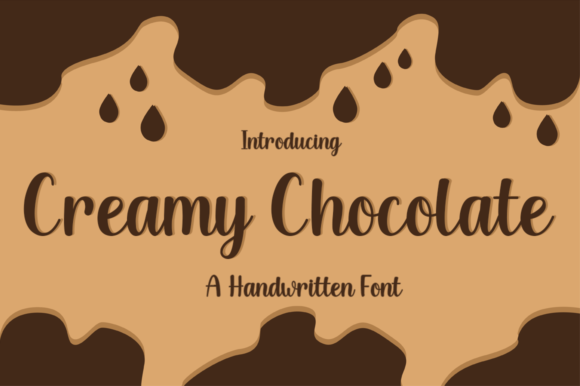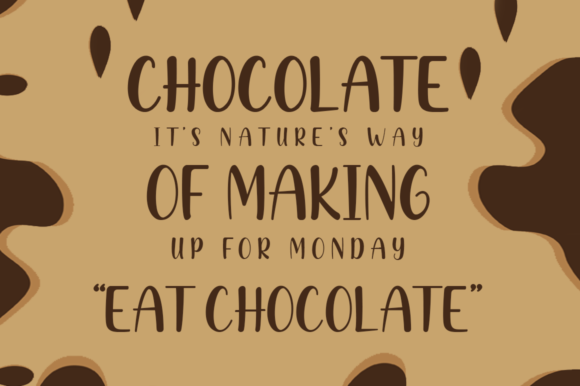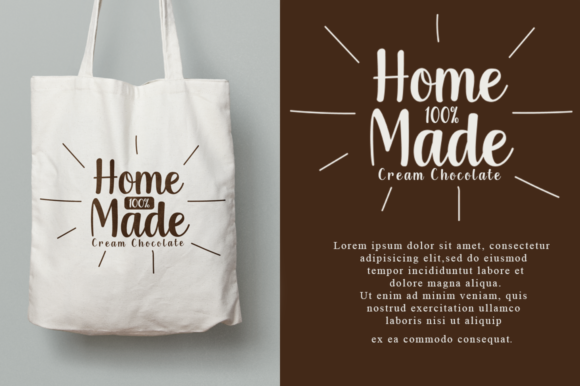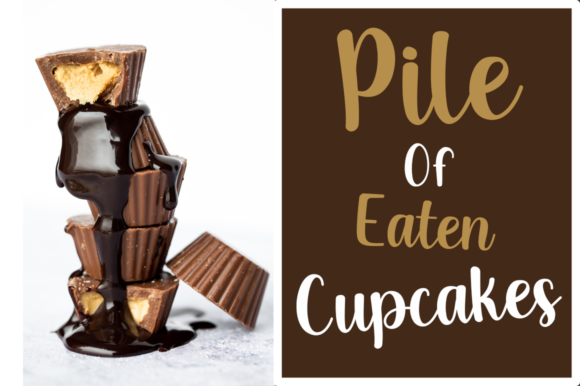
Creamy Chocolate Font: Cute Handwritten Script for DIY & Cricut Projects
About the Creamy Chocolate Font
Step up your design game with Creamy Chocolate Font, a font that exudes confidence and style. Creamy Chocolate is a cute and elegant handwritten font with an incredibly friendly feel. Whether you’re looking for fonts for Instagram or calligraphy scripts for DIY projects, This font will turn any creative idea into a true piece of art!
Creamy Chocolate’s friendly, elegant style is ideal for short text applications such as logos, headlines, and social media posts. It works exceptionally well in branding for products targeting a female demographic, particularly those related to food, beauty, or lifestyle. Avoid using it for body text or extended paragraphs; its delicate nature makes it less legible at smaller sizes.
Pairing Creamy Chocolate with a clean sans-serif like Open Sans or Lato for body copy provides excellent contrast and readability. For a more playful feel, consider pairing it with a geometric sans-serif such as Montserrat. A classic serif like Garamond could also work well, adding a touch of sophistication.
The font’s overall personality is best described as charming and approachable, making it perfect for conveying warmth and friendliness. Its handwritten style gives projects a handcrafted, authentic touch, but its refined curves prevent it from feeling overly casual or childish.
Creamy Chocolate Font Usage Examples
Creamy Chocolate Font Example